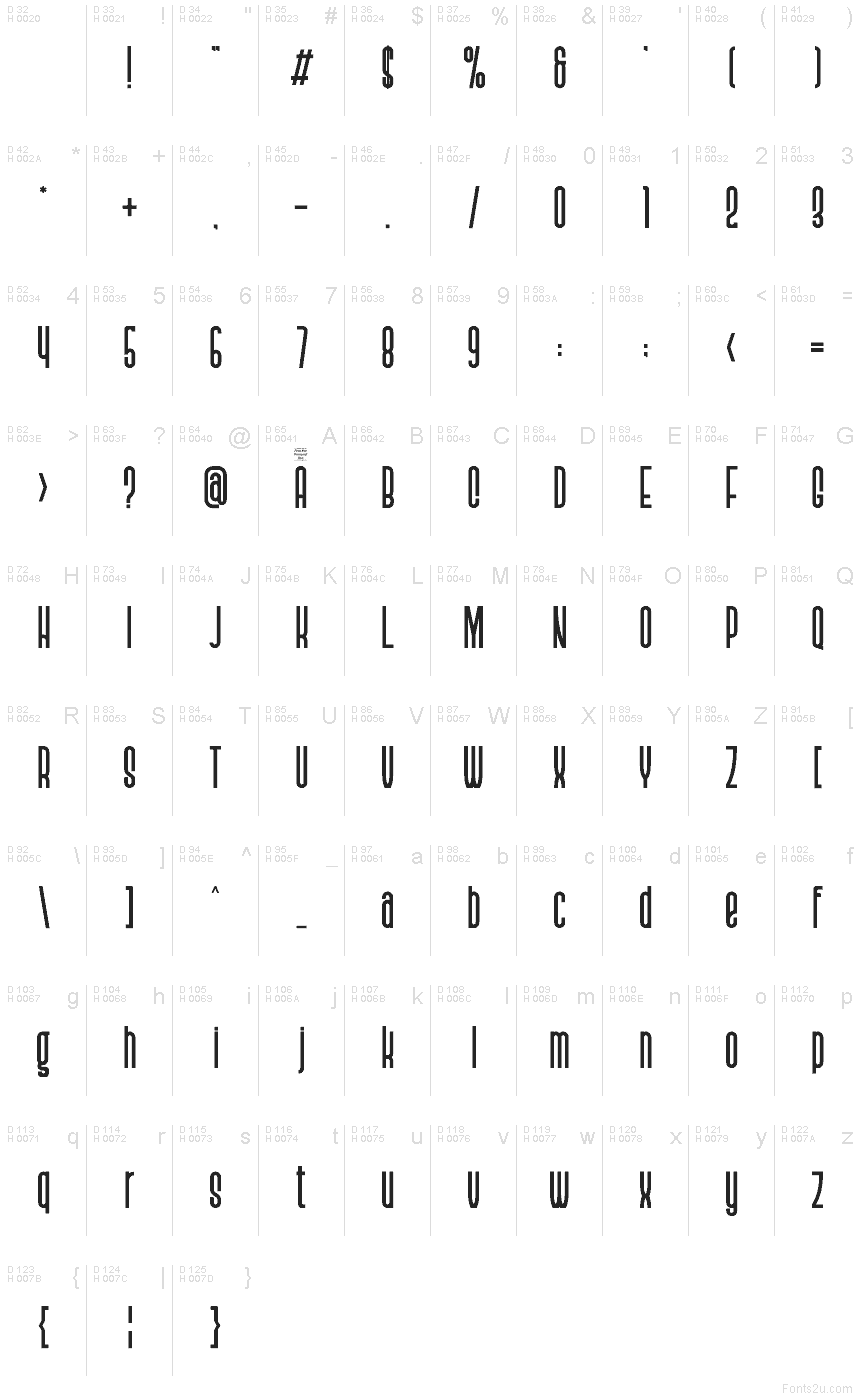
Bradome
Bradome font by Ermedia Studio is a free condensed retro font. It stands out with tall, tubular strokes and rounded terminals that create a smooth, pill-shaped rhythm—like neon bent into tidy columns. The narrow build squeezes maximum impact into tight spaces, while the steady, low-contrast lines keep it crisp and readable at headline sizes.
Using Bradome, titles lock together with an even cadence that shines on posters, cafe signage, album covers, fashion labels, packaging, and bold social headers. This free font thrives when tracked slightly and blown up; pair it with a clean grotesk for body copy to balance its vintage punch.